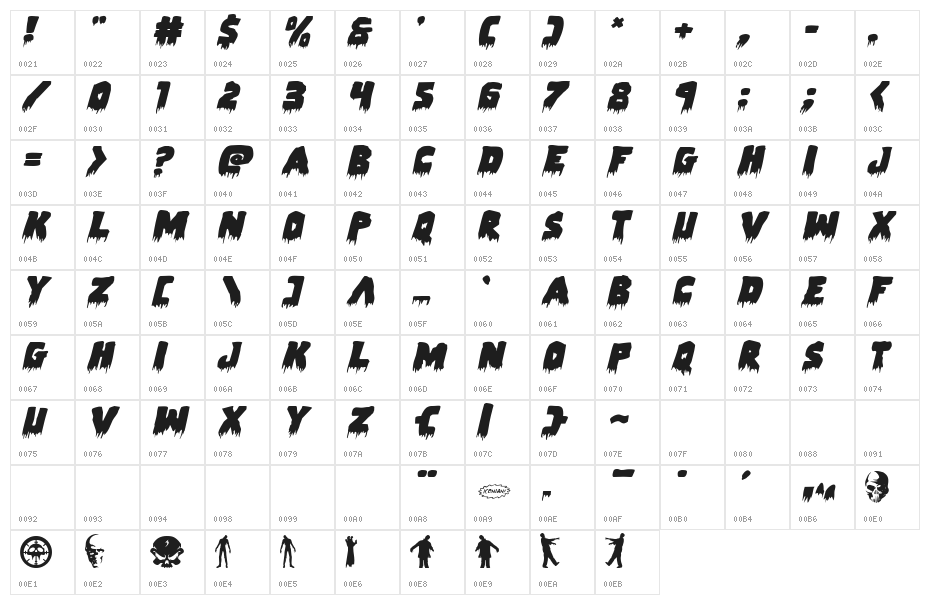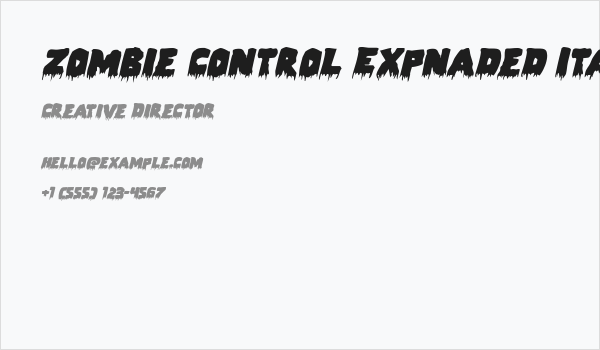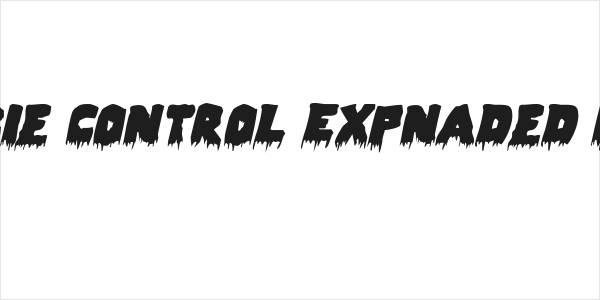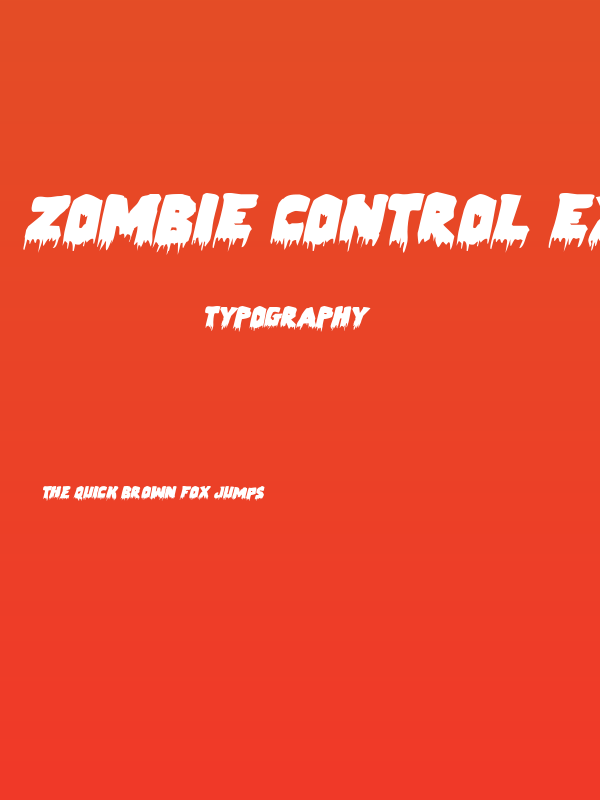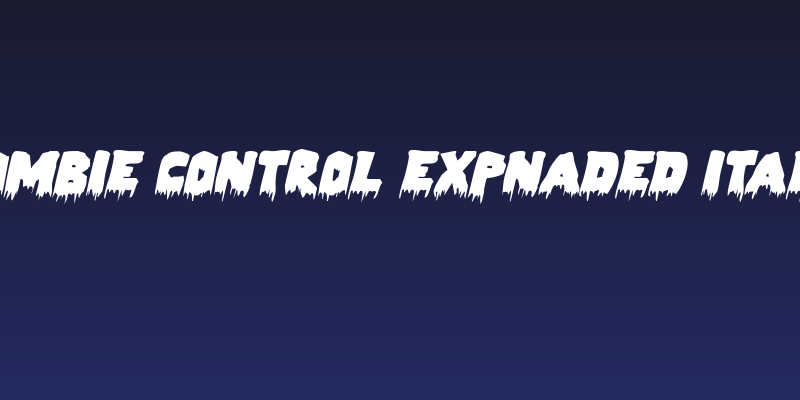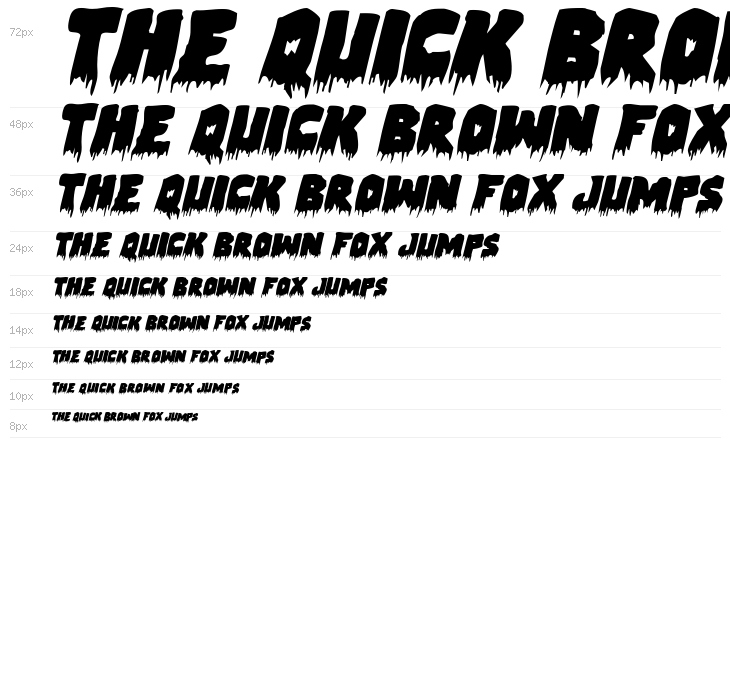
Zombie Control Expnaded Italic Font
Zombie Control Expnaded Italic Description
This font features a bold and dramatic style, characterized by its dripping, jagged edges that evoke a sense of horror and suspense. The letters are heavily stylized, with an expanded width that gives them a commanding presence. The italic slant adds a dynamic and unsettling feel, perfect for creating an eerie atmosphere. The numbers and special characters maintain the same dripping effect, ensuring consistency across all elements. This font is ideal for projects that require a spooky or Halloween-themed aesthetic.
| Proposed Projects | Ideal for Halloween posters, horror movie titles, haunted house flyers, and spooky event invitations. |